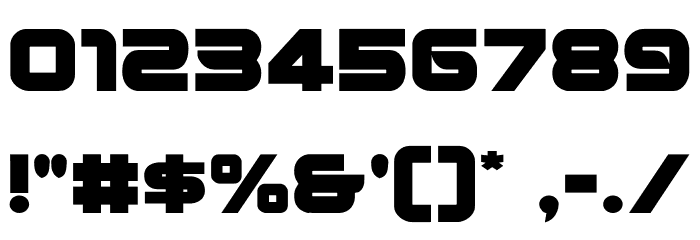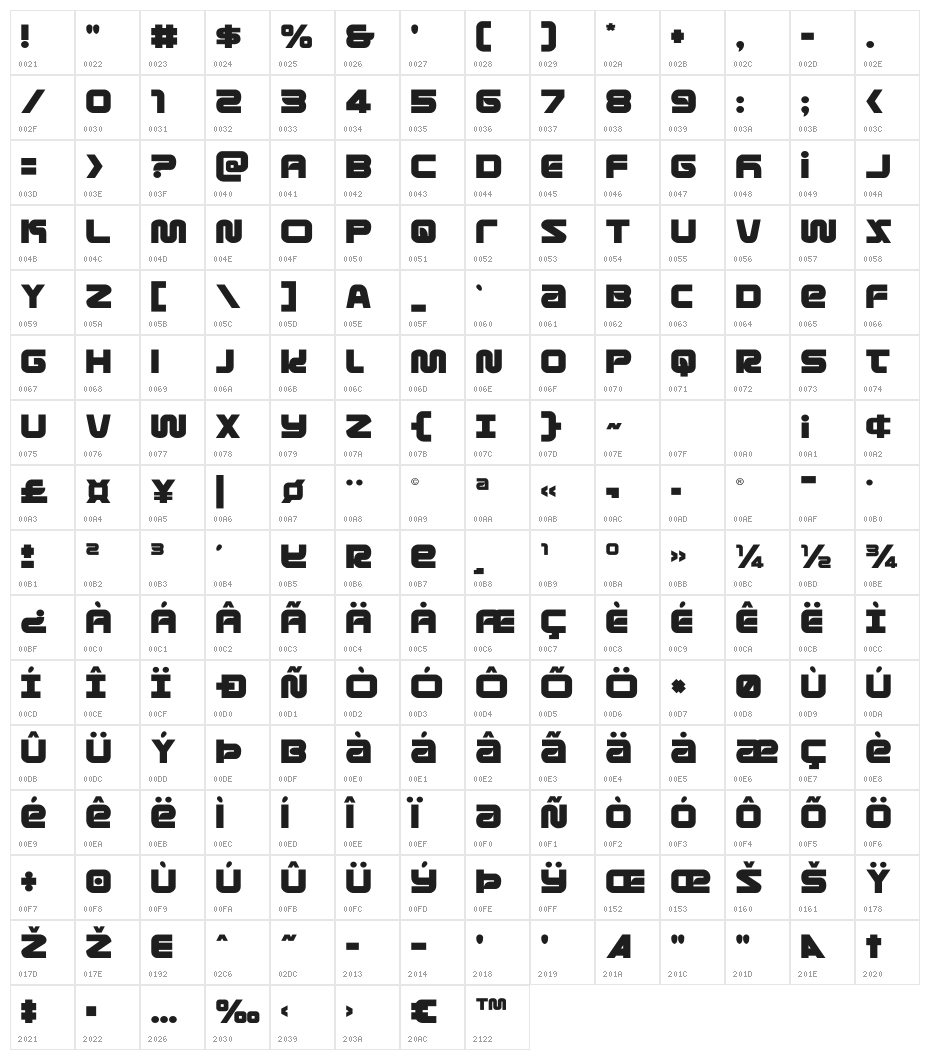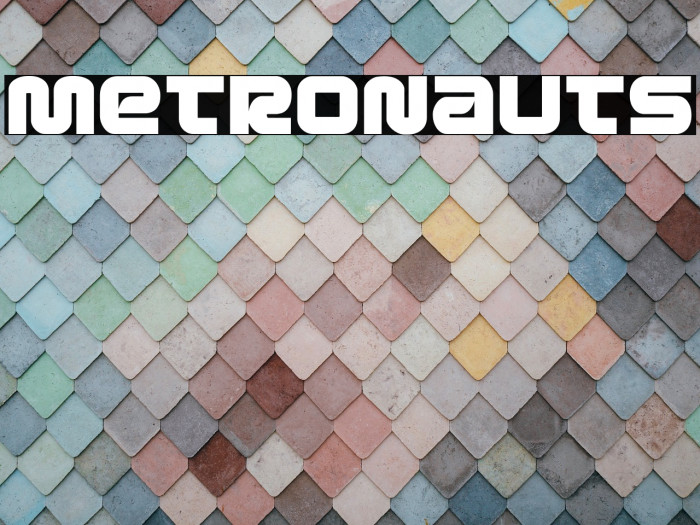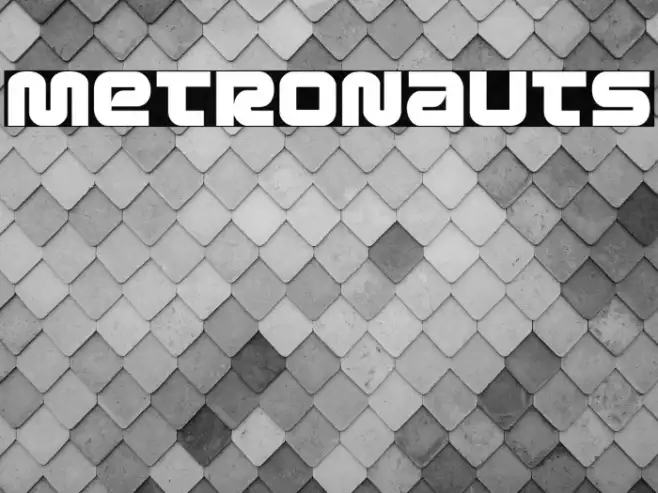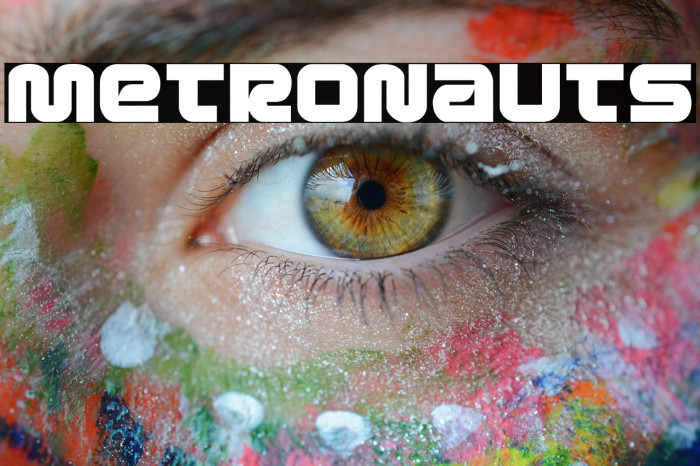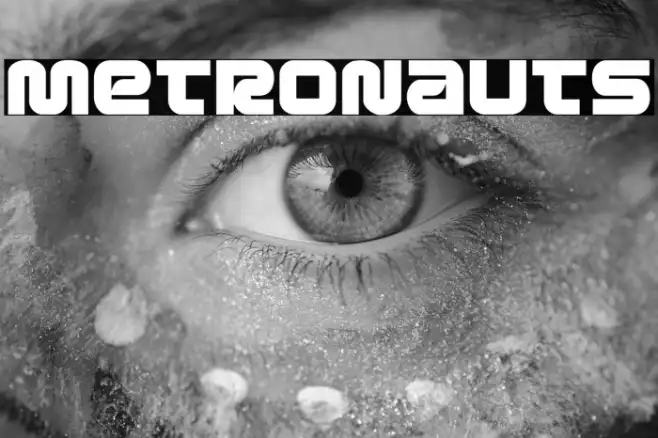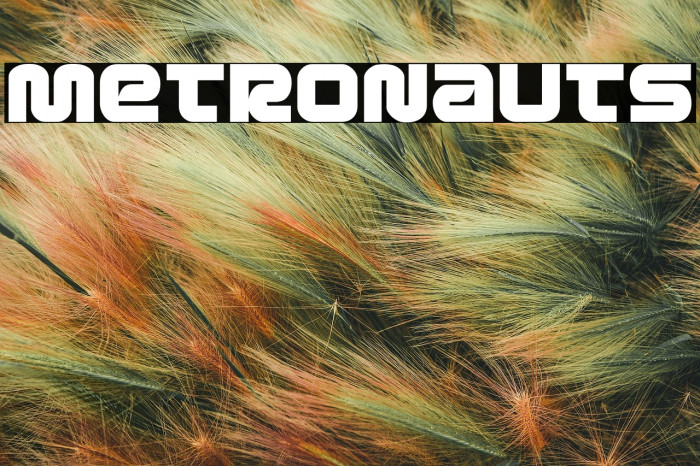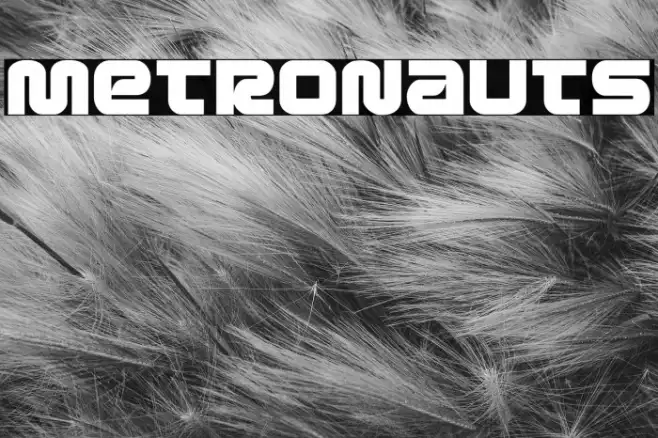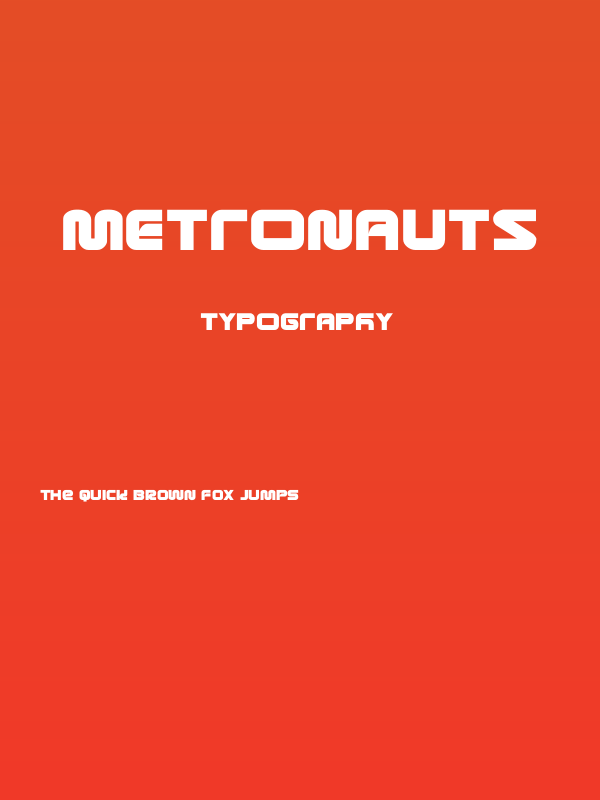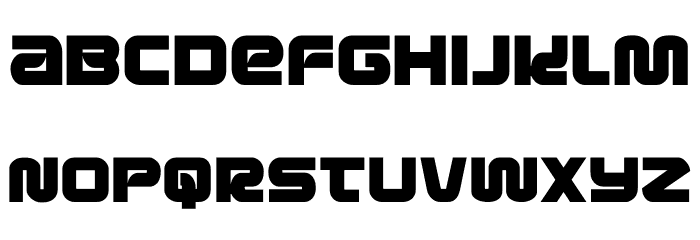
Metronauts Font
Metronauts Description
This font features a bold, futuristic design with geometric shapes and a strong presence. The characters are constructed with a uniform thickness, creating a cohesive and modern look. The uppercase and lowercase letters share a similar structure, enhancing the font's uniformity. The numbers and special characters maintain the same bold style, ensuring consistency across all elements. The overall appearance is sleek and contemporary, making it suitable for projects that require a modern and impactful typeface.
| Proposed Projects | Ideal for technology branding, sci-fi movie posters, video game titles, and modern advertising campaigns. |